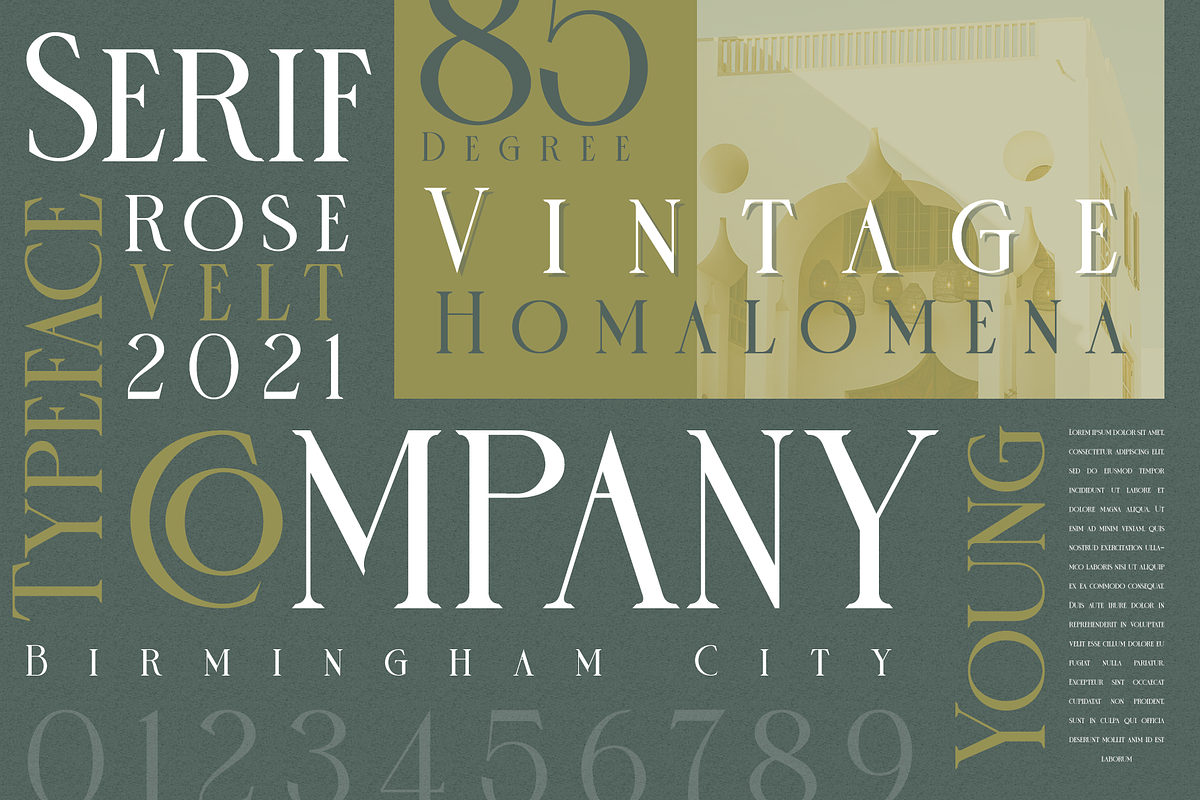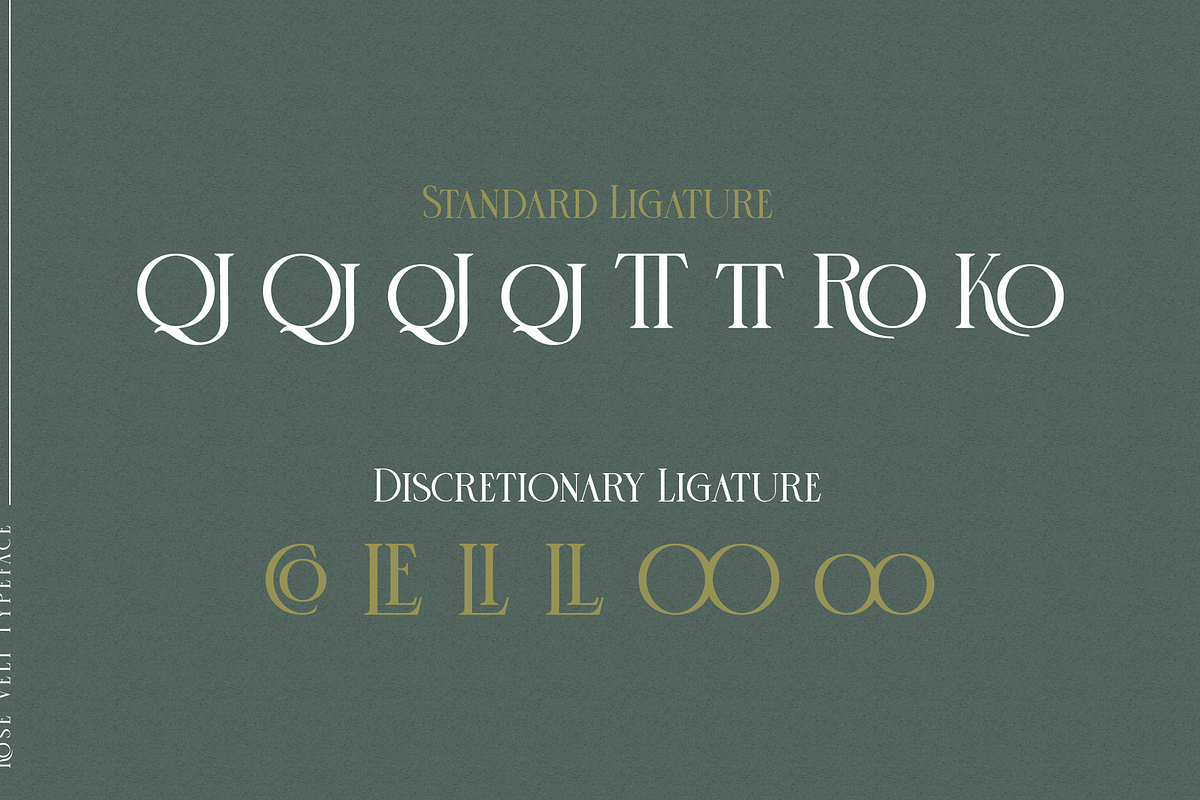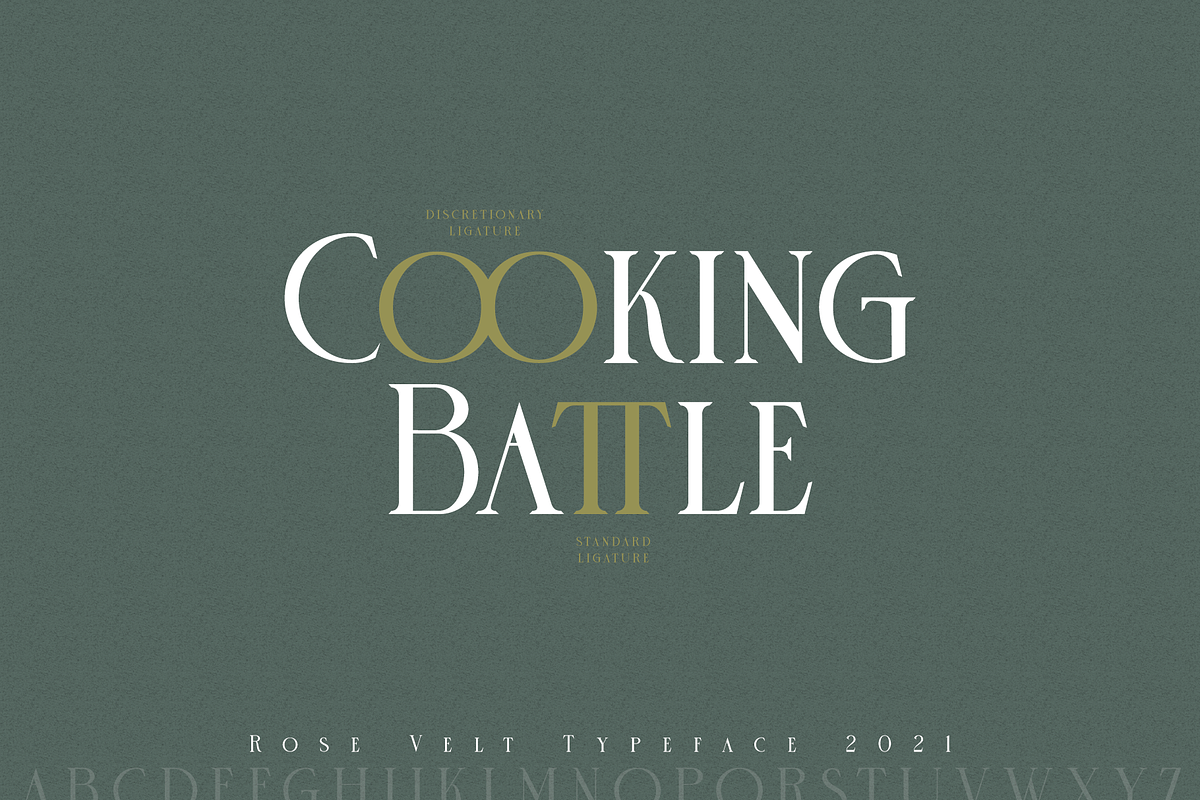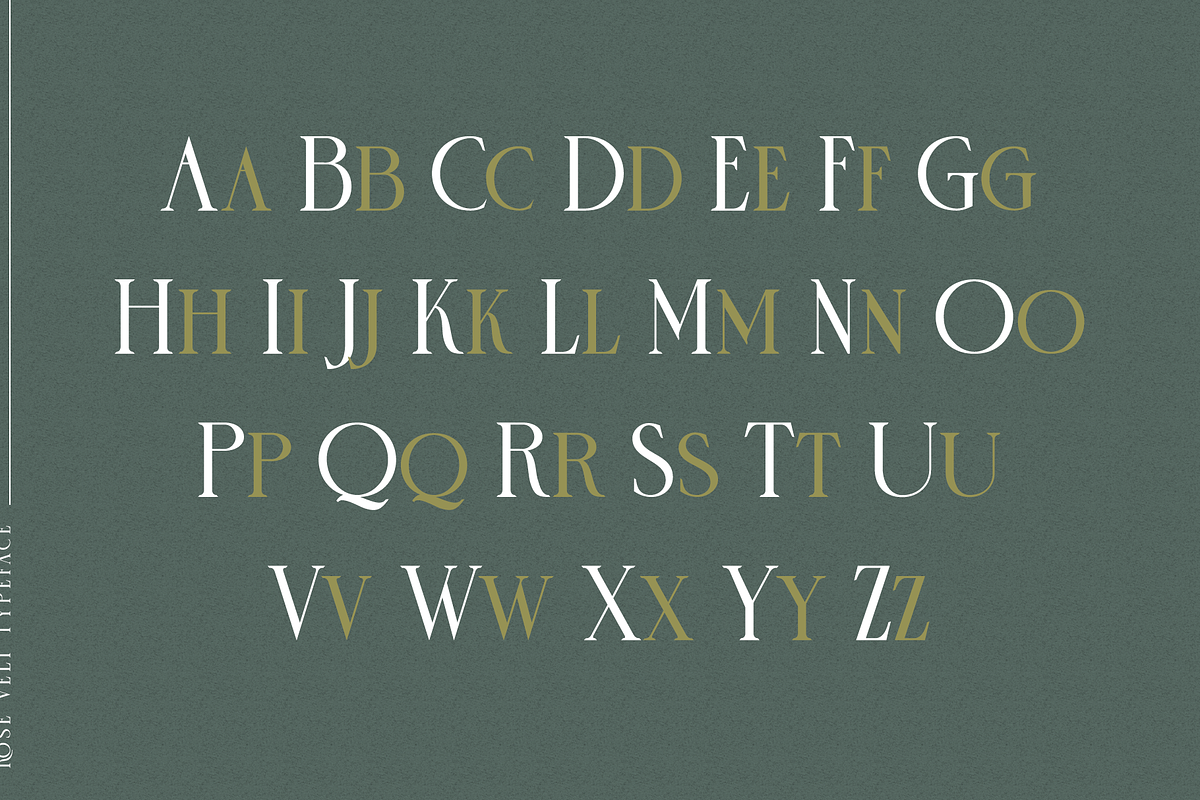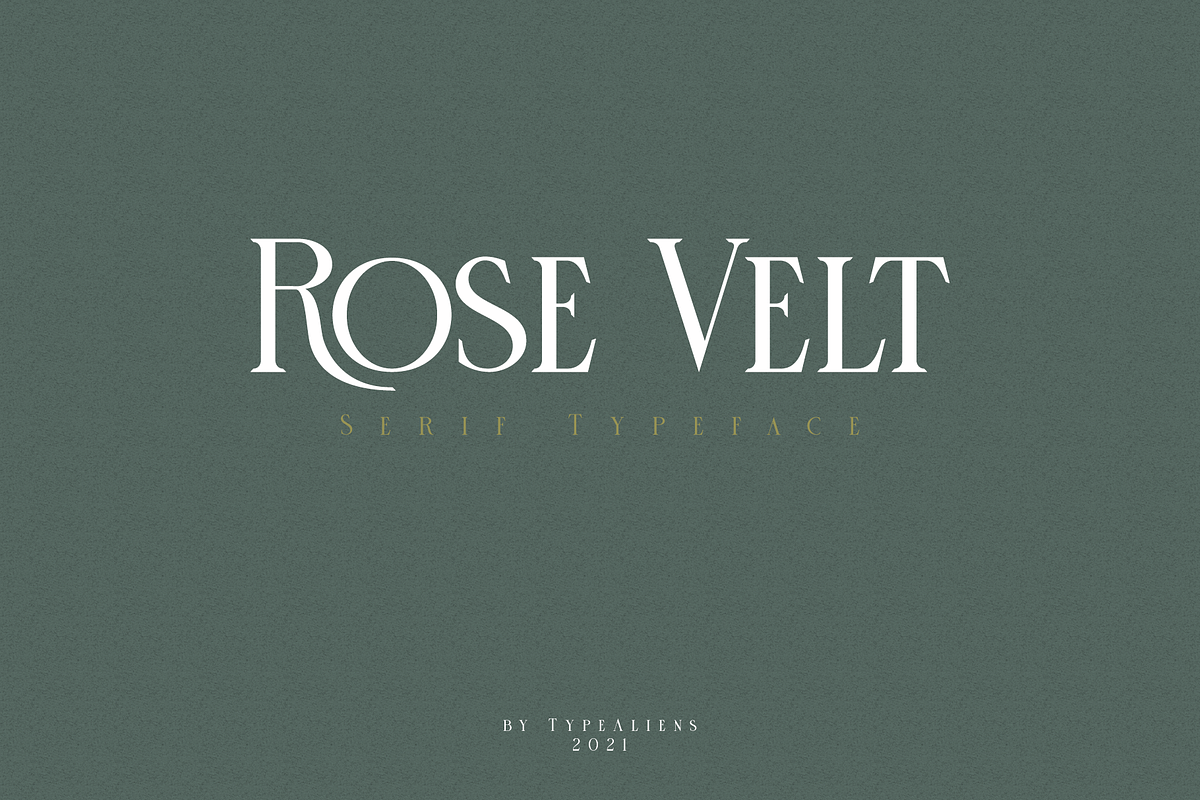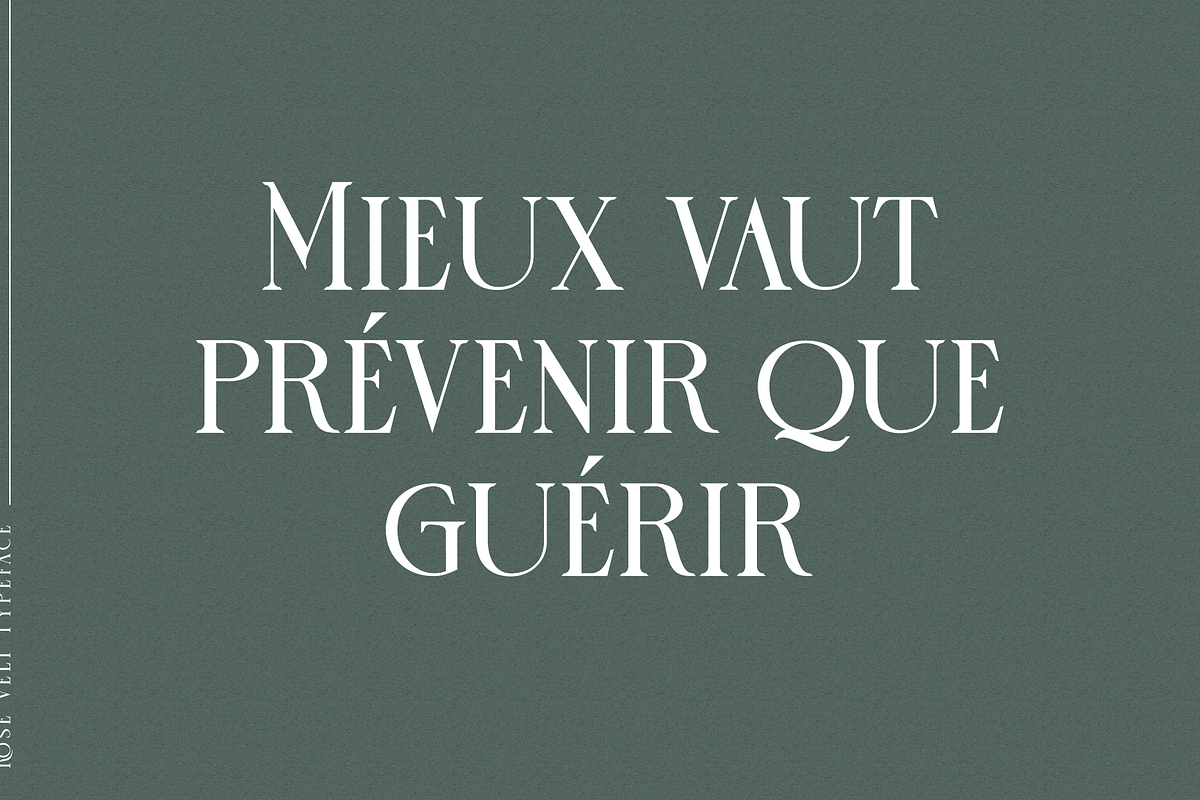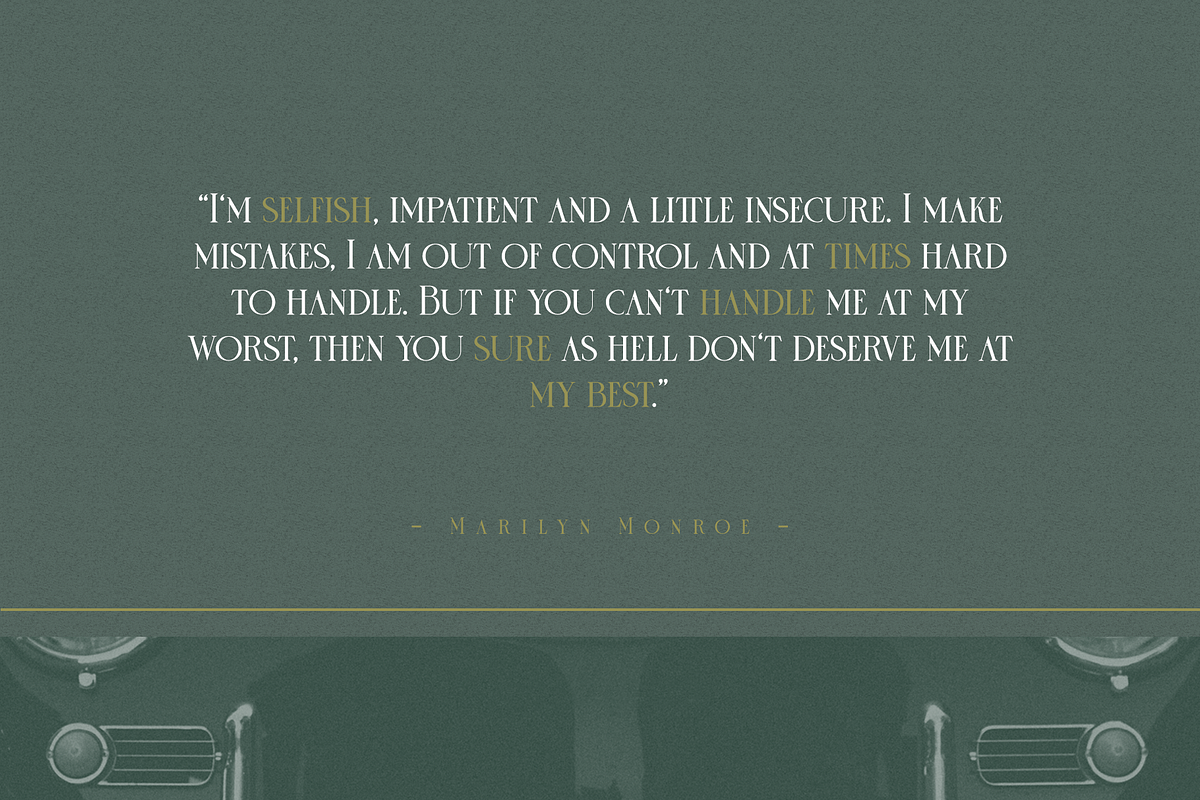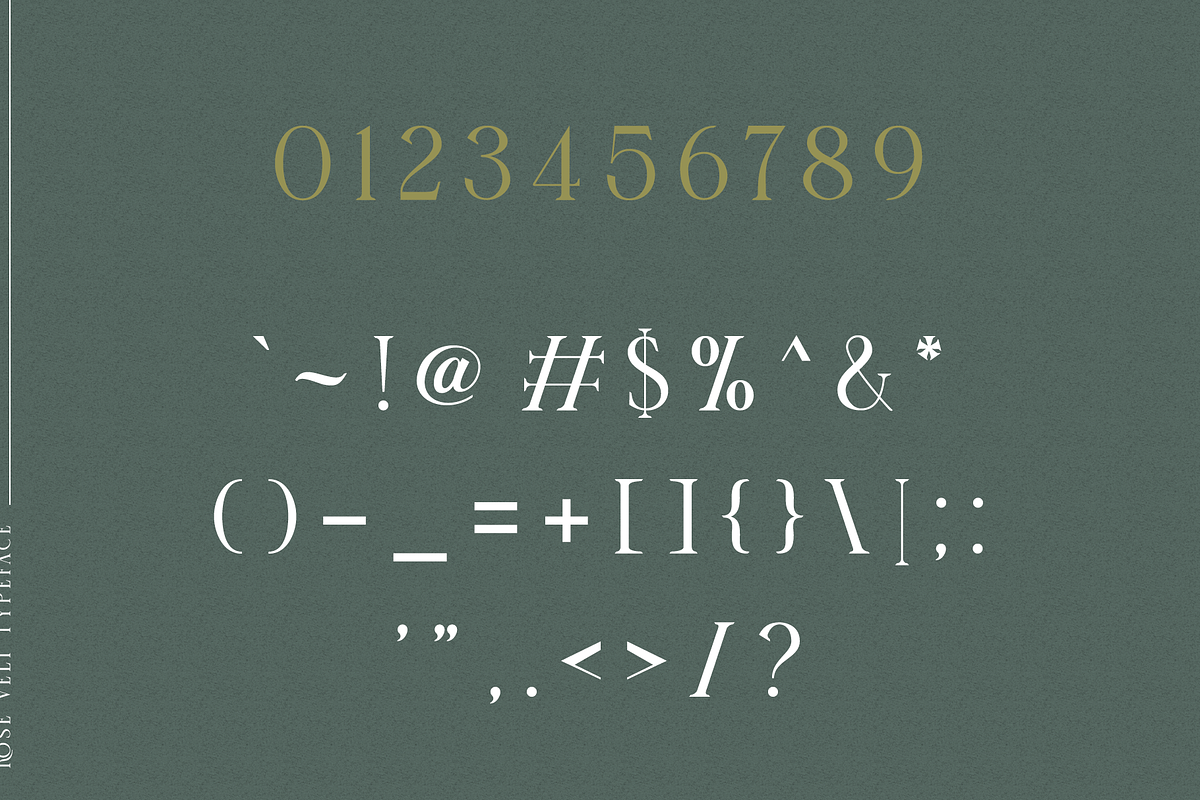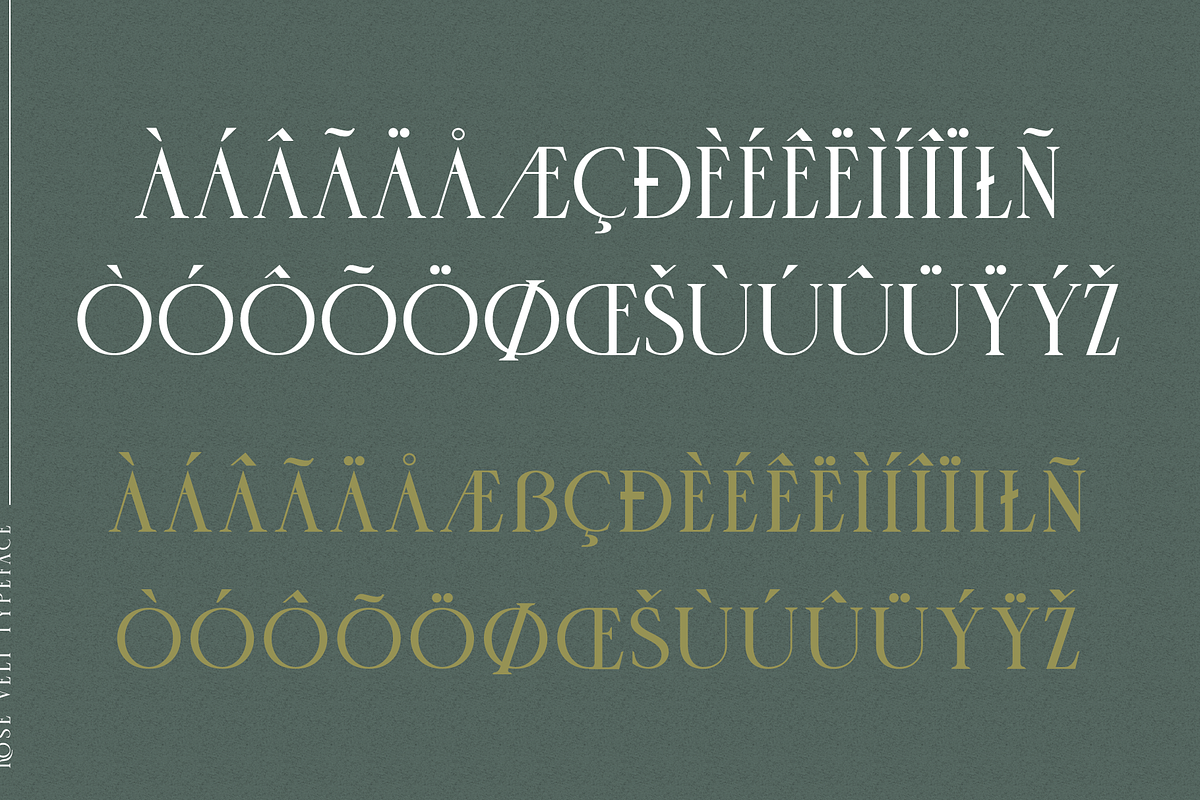
Rose Velt
ROSE VELT
Rose Velt is a closely spaced vintage serif font that has a slightly feminine nature.
Quite elegant font, very easy to apply to logos, clean and classic but still attractive for modern designs such as magazine covers, posters, flyers etc.